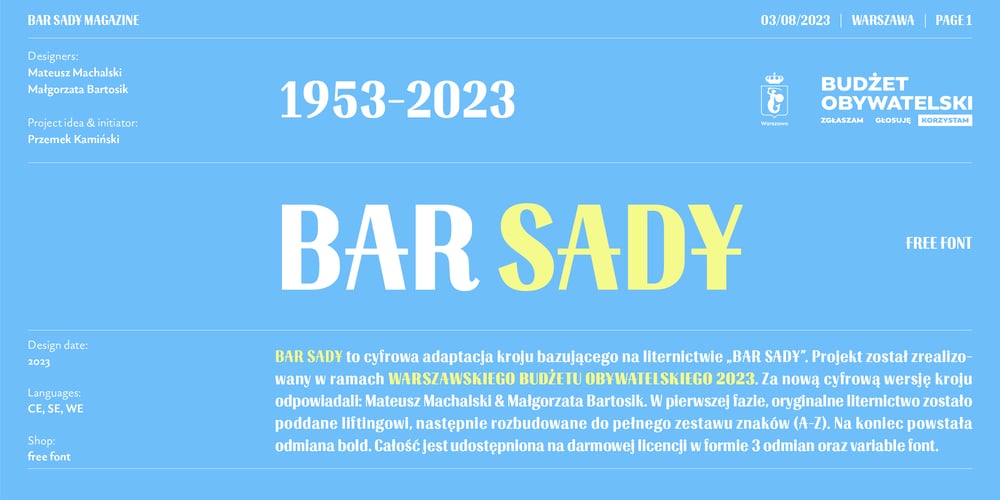
BAR SADY Font Family was designed by Mateusz Machalski, Malgorzata Bartosik and published by Machalski. BAR SADY contains 3 styles and family package options. BAR SADY is a revival of a typeface based on famous lettering from “BAR SADY”. The project was implemented as part of the Warsaw Participatory Budget 2023. Mateusz Machalski & Małgorzata Bartosik were responsible for the new digital version of the typeface. In the first phase, the original lettering was lifted, then extended to a full set of characters (A-Z). Finally, the bold style was created. The whole family is available under a free license.